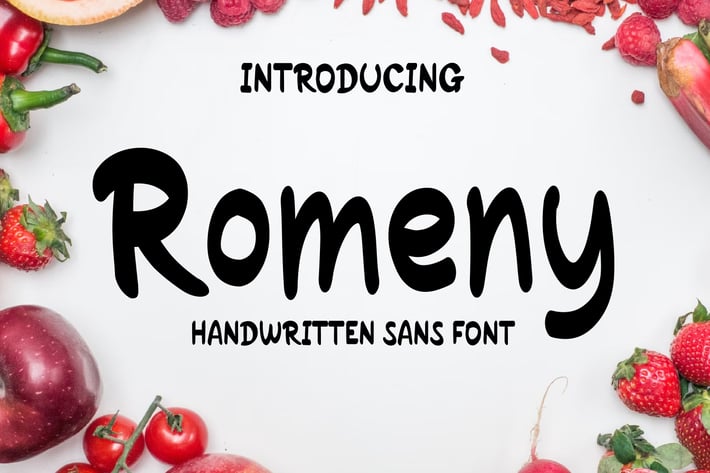
Romeny Sans Handwritten Font
Introducing Romeny - Sans Handwritten Font
Romeny is a Sans Handwritten font. Perfect for branding projects, logo, wedding designs, social media posts, advertisements, product packaging, product designs, label, photography, watermark, invitation, stationery and any projects that need handwriting taste.